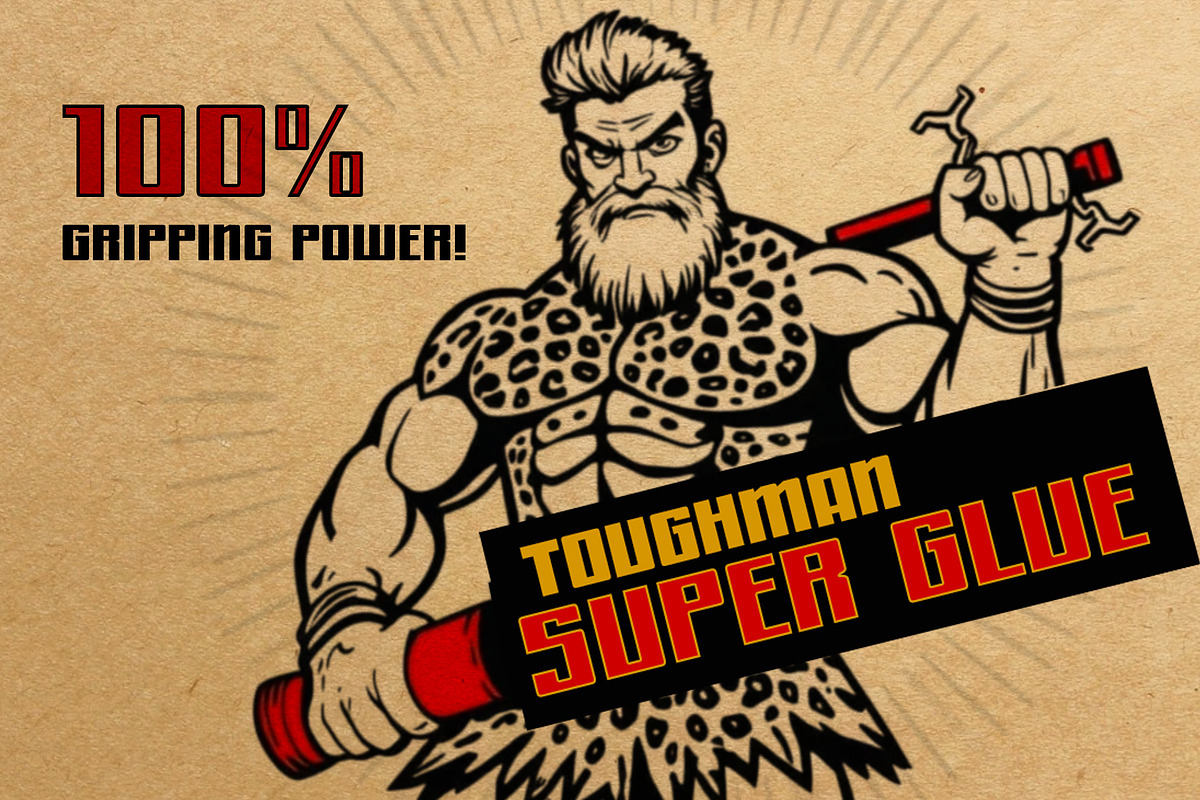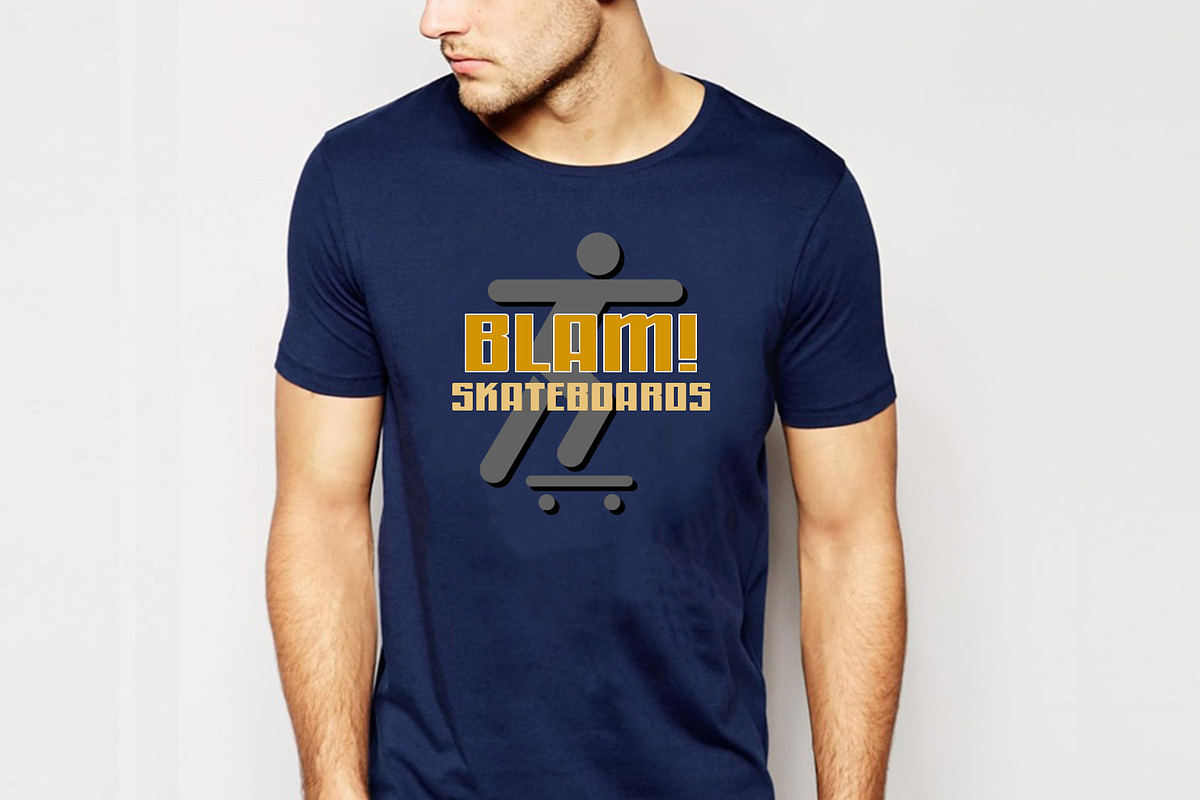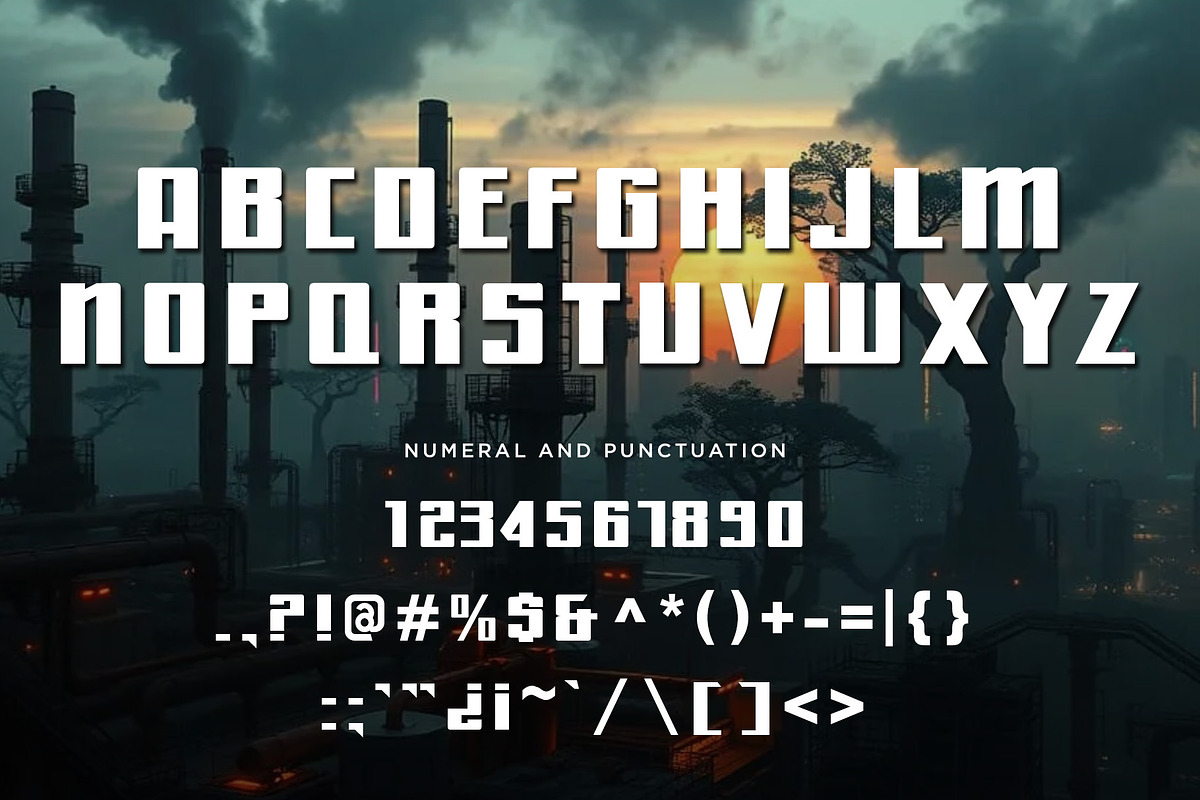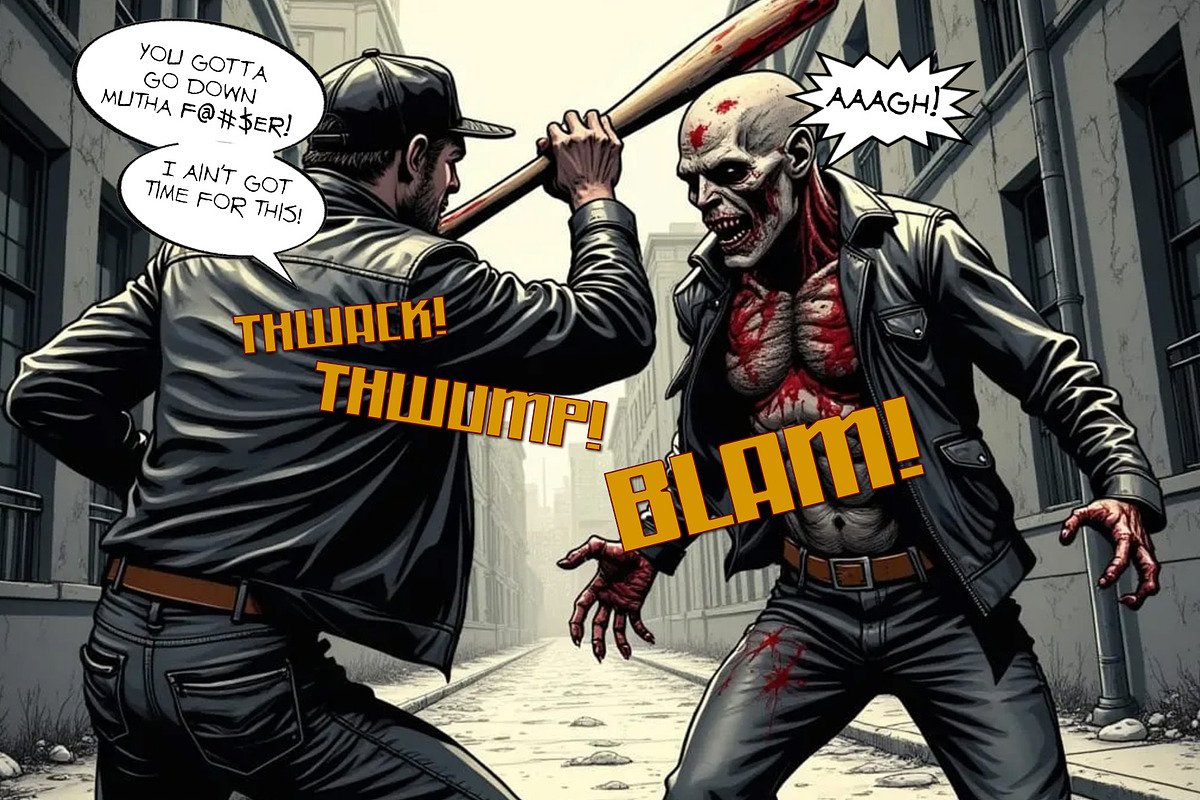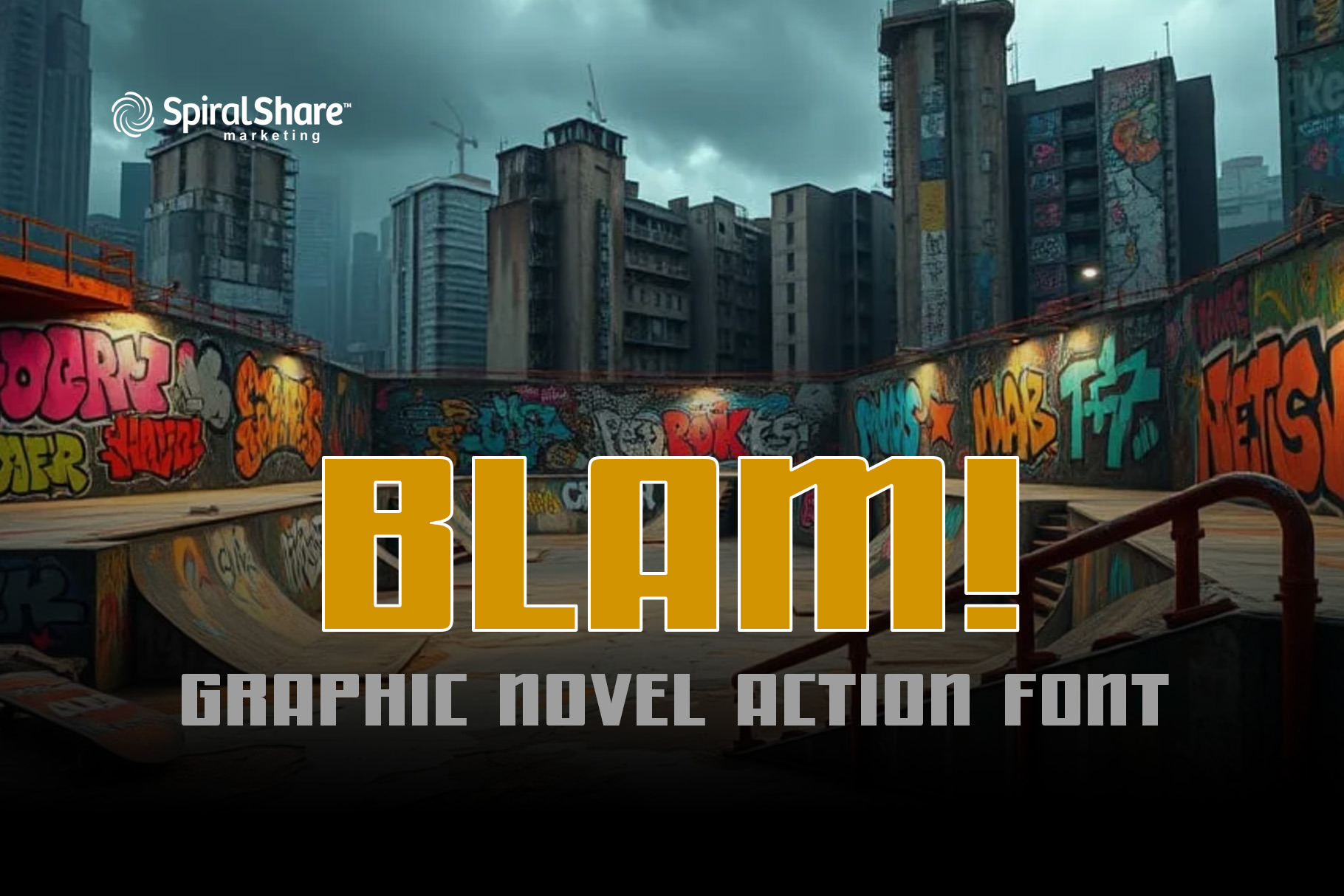
BLAM - Graphic Novel Modern Font
Introducing BLAM—The Bold and Gritty Graphic Novel Font!
Inspired by the raw, hand-lettered style of The Walking Dead graphic novel, BLAM delivers a punch of intensity and character to every design. Perfect for branding projects, movie titles, logos, social media posts, posters, and book covers, this font captures the energy and drama of classic comic book lettering.
Whether you're designing for horror, action, or dystopian themes, BLAM brings bold impact and gritty realism to your creative projects. With sharp edges, dynamic strokes, and a hand-drawn feel, it’s ideal for making statements that stand out.